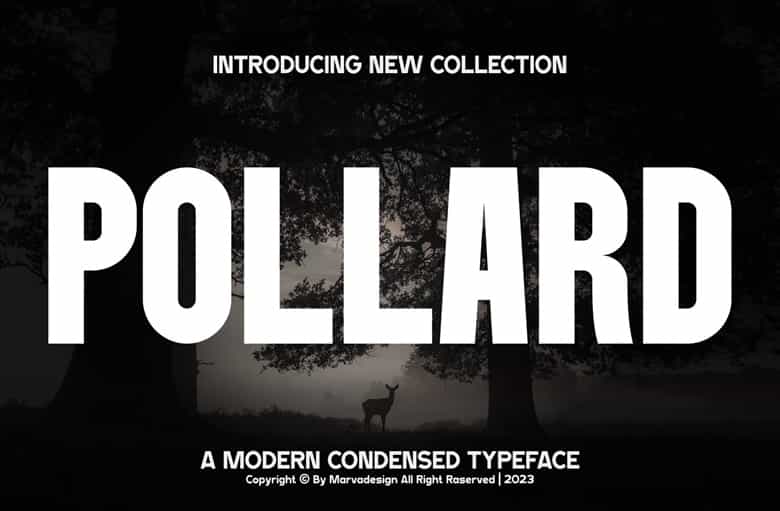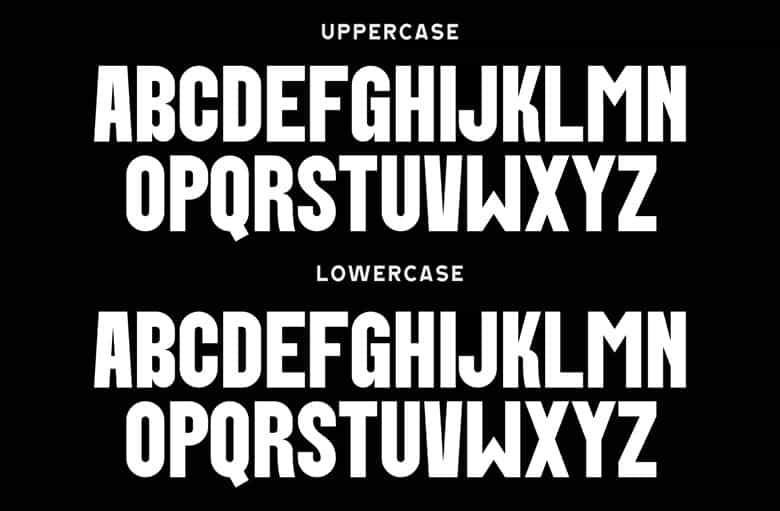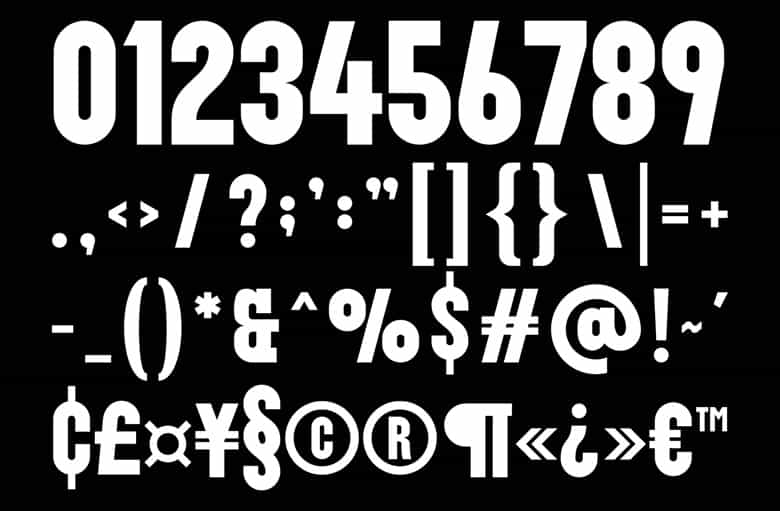
Pollard is a fresh and clean bold sans serif typeface for all kinds of applications and it is suitable for various uses. Clean lines and proportional symmetry makes it modernistic and ideal for use in an array of projects. In branding and getting down to the editorial design, this font stands as a professional and elegant font.